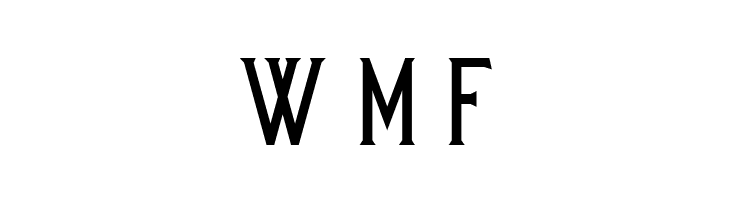
A bold, italic sans-serif font with a modern and geometric design.
A Halloween-themed decorative font with letters in coffin shapes and skeletons.
A high-contrast, italic serif font with dynamic and elegant strokes.
A modern, geometric font with rounded edges and uniform stroke width.
Horror-themed decorative dingbats.
A playful font with letters inside black cat silhouettes, perfect for Halloween themes.
A bold, italicized font with angular, dynamic characters.
A bold, playful font with thick, rounded strokes and a dynamic, hand-drawn style.
A playful, italicized handwritten font with smooth, rounded strokes.
A classic serif font with elegant strokes and a traditional aesthetic.
A collection of horror-themed dingbats with eerie and spooky designs.
A bold, dynamic font with a slight slant and strong geometric influence.
A playful, handwritten font with bold, rounded strokes and a casual style.
A modern, hollow font with a decorative and three-dimensional appearance.
A bold, geometric font with a futuristic and modern aesthetic.
A bold, italic font with a modern and dynamic style.
A bold, playful font with a chunky, rounded style ideal for informal designs.
A bold, flowing script font with connected letterforms and elegant curves.
A bold, oblique font with a modern and dynamic style.
A playful, bold font with slightly condensed letterforms and a cohesive design.
A bold, geometric sans-serif font with a unique horizontal line through each character.
A bold, geometric font with a modern, structured design.
A modern, geometric font with rounded edges and a monospaced style.
A bold, jagged font with an energetic and dynamic appearance.
A bold, italicized font with futuristic curves and decorative star elements.